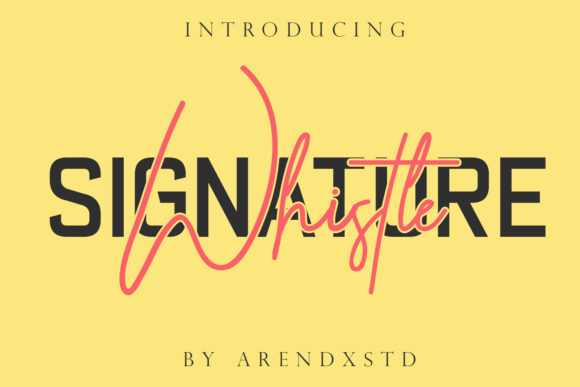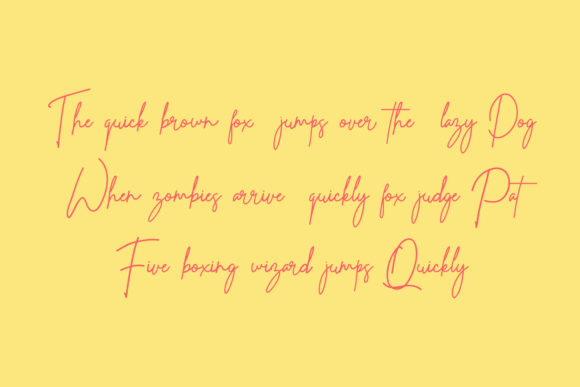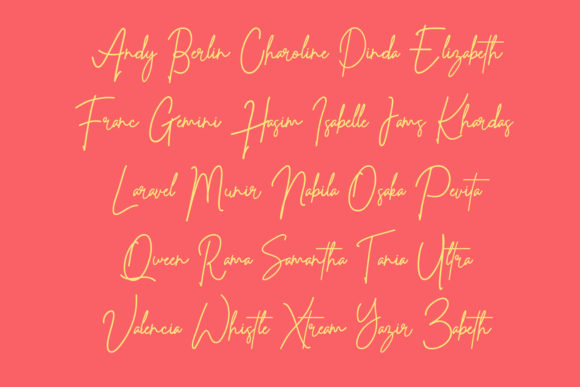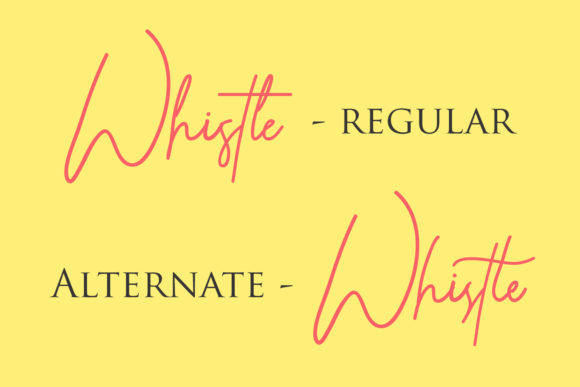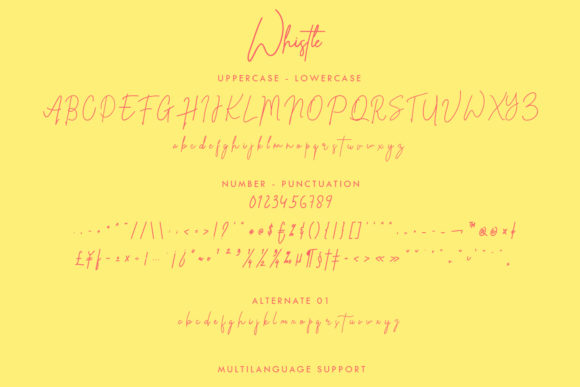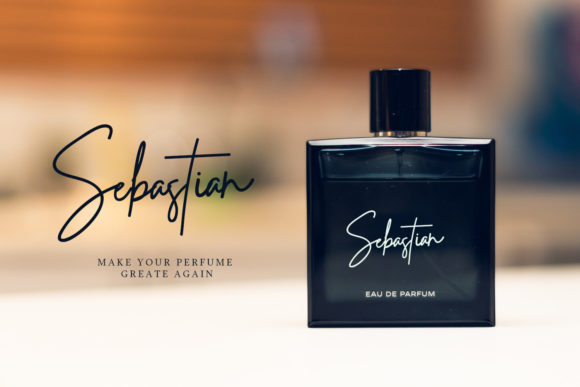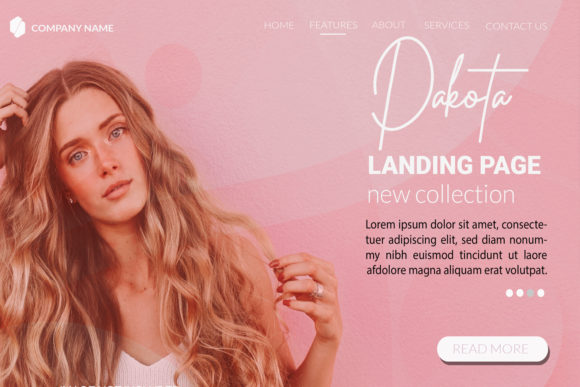
HomeScript FontsWhistle Font Script Fonts Whistle Font FacebookXPinterestWhatsApp Whistle Font Poster 2 Whistle Font Poster 3 Whistle Font Poster 4 Whistle Font Poster 5 Whistle Font Poster 6 Whistle Font Poster 7 About Whistle Font Whistle is an incredibly beautiful handwritten font with a personal charm. Fall in love with its unique feel! DOWNLOAD ON CREATIVE FABRICAThis font is sold and delivered by Creative Fabrica. Font Canyon may earn a commission if you buy through this link. People also explored Wedding Song Font Saturdays Font Ferrum Font Before Loving You Font Love in Kendal Font Roast Beef BTN Food Table Catering Card Mock Up Windgard Font Kezogy Font 322 0 TagsWhistle Font Previous articleBeauty Flowers FontNext articleWelcome Script Font LEAVE A REPLY Cancel reply Comment: Please enter your comment! Name:* Please enter your name here Email:* You have entered an incorrect email address! Please enter your email address here Website: Save my name, email, and website in this browser for the next time I comment. Personal Use Free Messages Personal Use Free Read more about this font Blue Highway Personal Use Free Read more about this font Deftone Personal Use Free Read more about this font DangeRNighT Font Personal Use Free Read more about this font BLOG To increase your work productivity, choose the most readable fonts. In today's fast-paced work environment, where digital communication and information consumption are integral to our daily routines, the choice of fonts can significantly impact... Best Fonts for YouTube Videos: Make Your Thumbnails Stand Out Top 7 Google Fonts Alternatives for Faster and Privacy-Friendly Web Design (2025) How to Install and Use Fonts on Windows, macOS, and Web Projects